Fonts are a very important part of any web design. Websites are always full of information and when it comes to the text you have to use an appropriate font. It should comply with the style and color scheme of the background and design elements. For example, if you develop a design for a finance business website you must use strict and standard fonts. Any designer can find free fonts that may look better than standard typefaces.
In this list of top 100 free fonts for designers, we present you with a collection of fonts that may bring a new vibe to your design. Some look authoritarian and some look gorgeous. Some will make your design elegant and stylish while others conform more to a corporate style. All of the fonts on our list are the result of a thorough search. Take a look at each theme and we are sure you will find some interesting addition to your projects.
For your convenience, we separated this Top 100 fonts list into categories.
- Sans-serif fonts are often used for short text settings like credits or captions. This category of fonts is easy to read. If you create a design for children or people who are learning to read then this is your best choice.
- Serif fonts are not too fancy or alarming and look quite neutral. It is a good typeface for long texts like newspapers, books, and magazines.
- Due to its shape, rounded fonts may be a good decision for your web design. It may complement your design just right. Rounded fonts are especially good for titles.
- Display fonts are perfect for highlighting titles and images. If you want to focus the viewers’ attention on some picture then use one of these fonts.
- Based on the “good old days” style, retro and vintage fonts are good for thematic design, but you can use them for any reason you want because they look really good anywhere you use them.
- Graffiti fonts are good for thematic designs too. These are related to the hip-hop culture and street art that is a huge cultural niche nowadays.
- Script calligraphy is one of the most popular categories of typefaces. It looks good and you can use it for letters or poetry.
- Unusual fonts are a realization of ideas that do not fall in the other casual typeface categories. Yet they look very aesthetic and deserve your attention.
SANS-SERIF
1. ADAM.CG PRO
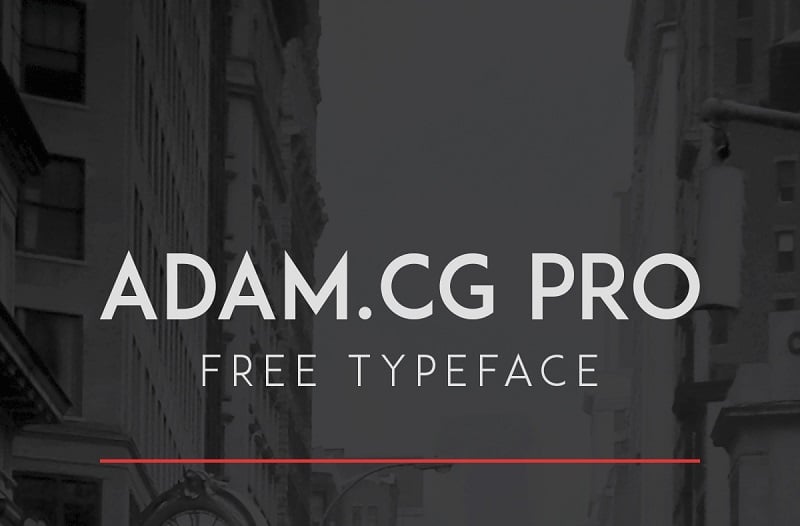
It is all capital symbols font with an interesting design. We recommend using it with noir design, or dark backgrounds. But you should do as you like and try a few experiments.
2. Aileron
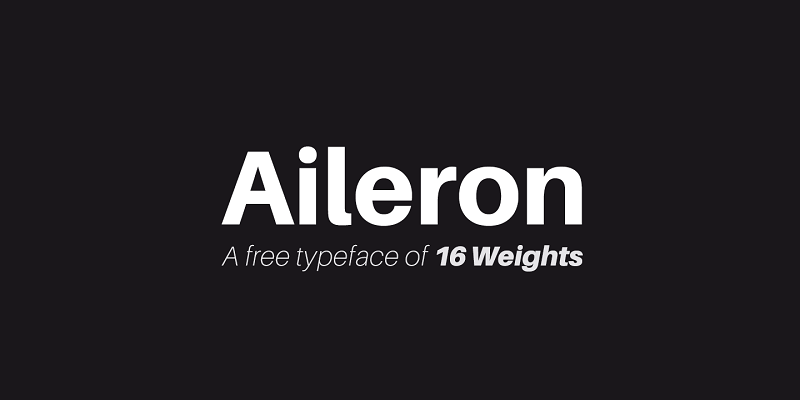
This free font is a neutral yet eye-catching tool for your book. Try it out and you will love it.
3. Alcubierre
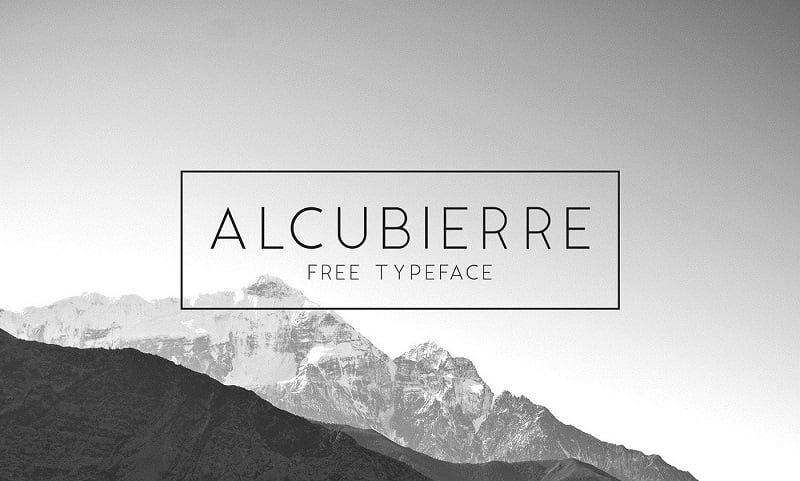
Alcubierre is a clean geometric sans serif typeface. It is good for minimalistic design and can be used for various projects.
4. Archive
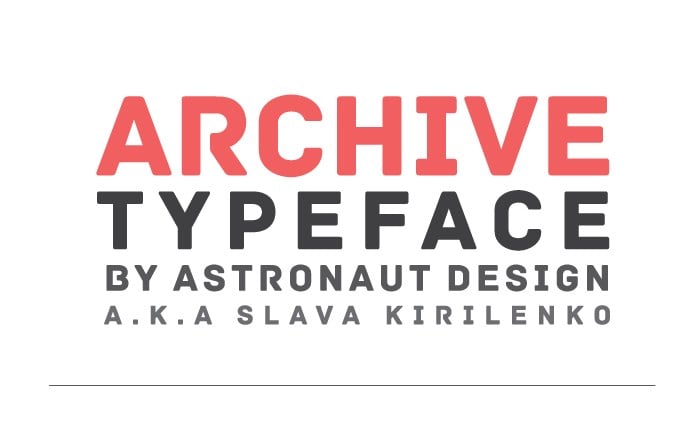
It is a great sans-serif font with strong geometric forms. You can use it for websites, prints, and so on.
5. Arkhip
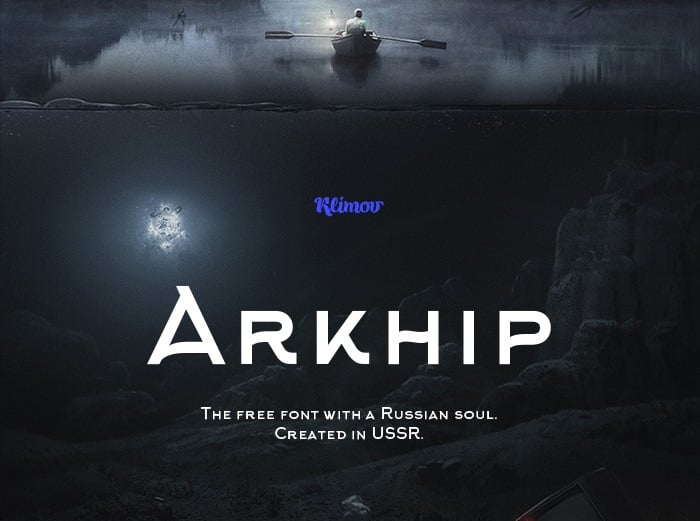
This is a typeface straight with deep Russian roots. Made by a Russian developer, it looks very authentic. Use it for prints, titles, and fantasy literature.
6. Audrey
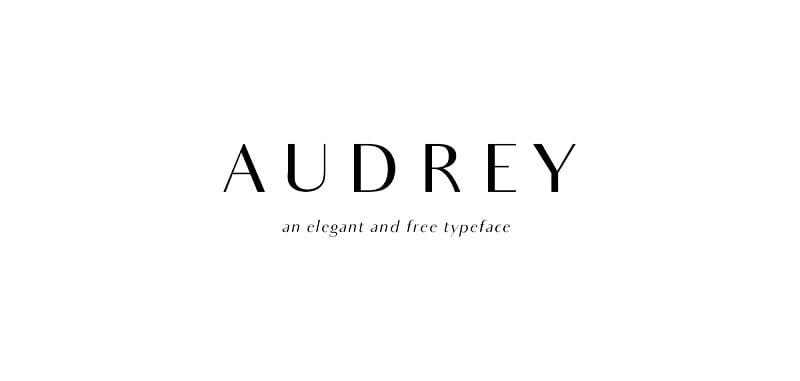
One of the most elegant and clean typefaces. It is highly multipurpose and beautiful. Contains all size letters and numbers.
7. Bakersfield
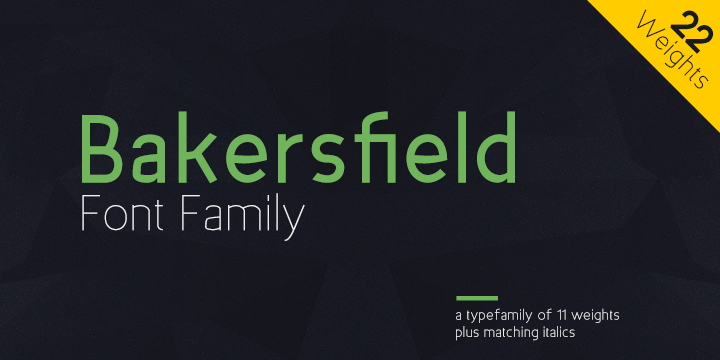
It is based on an inspiration from 1920s geometric-style typefaces. It has clean and highly legible forms. This font family is characterized by excellent legibility both in print and on the web.
8. Big John / Slim Joe
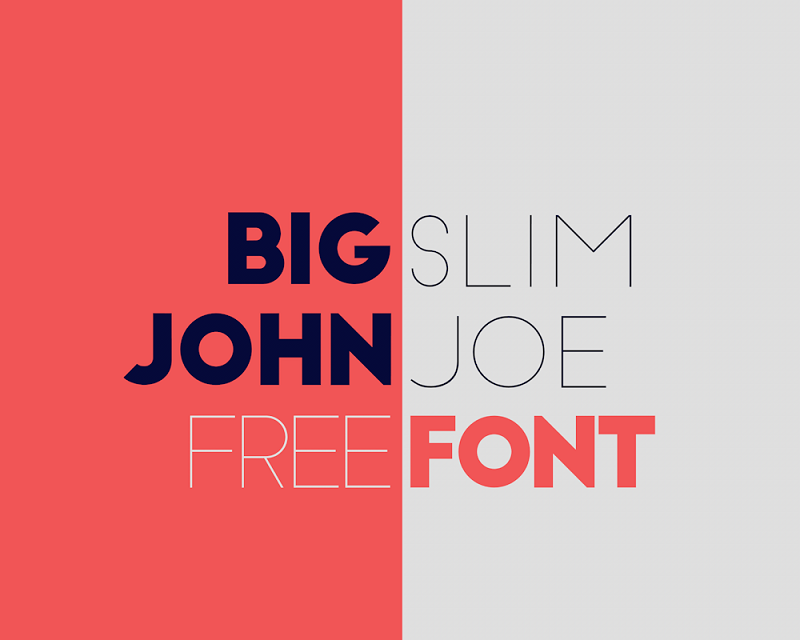
Modern and very aesthetic font with stylish symbols that will be an eye-catching addition to your project.
9. Borg
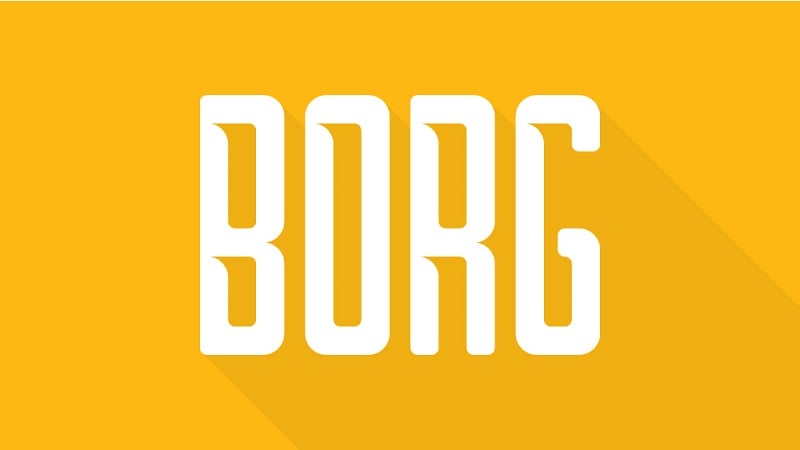
Inspired by the Swedish alphabet and art, this geometric typeface has a curved incision and an interesting design. The bright and stylish font will be a powerful tool.
10. Moon
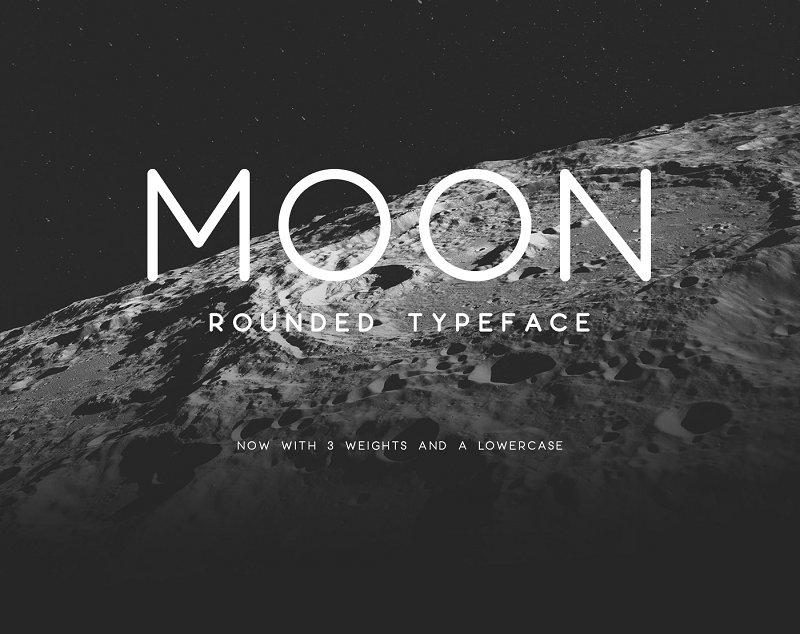
Moon is a sans-serif font based on the German alphabet. It has additional letters and it is totally free.
11. Raleway
Raleway is an elegant sans-serif typeface, designed in neo-grotesque style.
12. Signika
It is one of the best sans-serif fonts. This typeface comes with a wide symbol set that can be used for texts in European languages. It also contains small caps, pictograms and arrows.
Serif fonts
13. Aleo
Aleo has all the symbols of the Latin alphabet. It also has six styles (three weights and three italic) and sleek structure.
14. Arvo
In the Finnish language, Arvo means "number, value, worth." And this font is really worth downloading. It has four styles and contains all English alphabet plus numbers.
15. Athene
Gorgeous and elegant, the Athene font will be the perfect addition for a strict design.
16. Bitter
Bitter contains the Cyrillic and Latin alphabet plus numbers and numerous symbols. It is free and it has all you may need.
17. Brela
It is a great multipurpose font from makarskaestudio. Made by talented designers it is beautiful and has all you need.
18. Butler
Butler was created as an experiment when the author tried to bring a bit of modernism to serif fonts by working on the curves of classical serif fonts.
19. Choplin
Choplin is a modern and clear geometric slab serif with a sturdy heart.
20. Donau
Named after the German name for the river Danube this typeface has two styles, Alte and Neue. It is very authentic and aesthetic.
21. Fenix
Based on calligraphy with strong serifs and rough strokes, Fenix is perfect for long texts and display.
22. Libre Baskerville
This serif font is based on the American Type Founder's Baskerville from 1941 yet it was modernized to look good on the screen. It is commonly used for body text.
23. Lora
It is serif font that has some calligraphy elements. It was developed as a body text font.
24. Madras
Inspired by Thomas’s Andromeda typeface and street signs this typeface is a great serif font for various text types.
Rounded
25. Asap
Asap is especially good for screen and desktop use. Due to its shape, Asap is eye-catching and wide.
26. Bariol
This rounded font will attract audience attention to your titles and highlights.
27. Bring tha noize
It is a rounded font created in line with street art vibe. Use it for thematic design and it will highlight your titles.
28. Bubblegums
Funny and unusual font for kids and related web design. Use it with colorful background and you will be amazed with the results.
29. FT Helsingfurt
Three-dimensional shape of symbols may be a help for your design in case you need something interesting for your title.
30. Linotte
This font is very interesting. Though it is gentle and naive it is also legible and suitable for long texts with small symbol size.
31. Maddac
Maddac looks perfect with soft colors and is commonly used for titles and highlights. It has an unusual design and the shape of its symbols makes Maddac unique.
32. Maxwell
Maxwell is a multipurpose typeface that can be used for any type of design. It is commonly used for watermarks and logotypes.
33. Oduda
Thick 3D symbols are impressive and eye-catchy. Play with this font and see how it looks with a bright background.
34. Porky's
This font is a tribute to the 1980s film Porky’s. Big and funny, this font will be perfect for an entertainment design.
35. Ugo
Ugo is a modern and fancy typeface that looks extraordinary and has an original style.
36. Underwhelmed
Original free font that works well and can be the perfect addition for your design if you are looking for something unique.
DISPLAY
37. Arenq
If you need a stylish tool to highlight your image then use Arenq. It is eye-catching and stylish.
38. Aroly
It is a high poly font with trigonal lines and it looks good. It is popular due to its polygon design.
39. Carioca
It is a very colorful and refreshing typeface. Carioca is perfect for entertaining and art design. Play with it and you will like it.
40. Chelsea
Chelsea has four styles and an original design. It is based on the classic Badoni font. But it was remastered in order to make it modern and more legible.
41. Dual
This unique and fancy design will attract additional attention and make your design perfect.
42. Flomic
The futuristic style of the Flomic typeface will be in use for thematic web design and titles.
43. Fonarto
Fonarto is a classic, yet stylish typeface for titles, images, and posters.
44. Frinco
Based on an old fashioned font style, this typeface looks amazingly attractive. It is a multipurpose tool for any designer.
45. Furgatorio
It has 3D shaped symbols and a unique style. You will like it.
46. Kanji
Strict yet very elegant typeface for your web design.
47. Mad Squire
A talented designer created this state-of-the-art font and it supports multiple languages.
48. Myra
It is all a caps-free font family that looks strict yet highlights your text.
49. Typography Bundle
It has TTF and OTF file formats. This is a fresh typeface developed by professionals, and is perfect for titles and text on images.
Retro and vintage fonts
50. Cheque
This is a gorgeous font that contains both Latin and Cyrillic alphabet. It is stylish and graceful.
51. Bauru
Bauru works perfectly with noir design. It is a strict and stylish font.
52. Streetwear
This typeface is based on 1960s and 1970s style. Streetwear was created especially for logos, posters, branding, packaging and t-shirt design.
53. Paralines
This font has fashionable and has an eye-catchy design. Based on 1990s design style.
54. Hamurz
Free for personal and commercial use font with unordinary yet gentle design.
55. LOT
Perfect multipurpose typeface that can be used for any type of graphic design: web design, logos, prints, etc.
56. Palm Canyon Drive
Based on American 1950s style this typeface is perfect for a retro design.
57. Frontage Condensed
Developed as a colorful 3D font based on retro style it will be perfect for thematic web design, logos, prints, etc.
58. Monthoers
Ornate noire design that will be a valuable addition for your project.
59. Hamster
Multipurpose typeface with brush lettering.
60. LAZER 84
Based on 1980s style typeface that looks perfect.
61. Berlin
It has such good stylization that you might think it was made in the 1960s. A free font that looks good and creates a 1960s atmosphere.
62. Kino 40
Based on 1940s movie style this typeface will be a good addition to your collection.
Graffiti fonts
63. Ruthless Dripping One
Created according to street art standards, this typeface will be a good design feature for any magazine.
64. Urban Jungle
Graffiti typeface with original style and design.
65. BlowBrush
Typeface based on hip-hop style with oriental elements. Good addition for your collection.
66. Sister Spray
Simple and clean typeface based on hip-hop art style.
67. Tag Type
Eye-catchy hip-hop stylized font with Latin and Ukrainian alphabet.
68. Sprite
Inspired by sprite commercials and color tones, this graffiti typeface has both Latin and Cyrillic set of symbols.
SCRIPT CALLIGRAPHY
69. Ambarella
Gorgeous handwriting font created in line with Western European characters
70. Before Breakfast
Funny and simple typeface for your personal free use.
71. Besom
This is a distinct design with simple yet creative style.
72. Bizon
Based on old American cinema style this handmade typeface is unordinary and impressive.
73. Cavorting
This funny goofy font is something special for your fonts collection. Perfect for entertainment design and design developed for kids.
74. Claire Hand
New creative and clean typeface for letters and invitations.
75. Cutepunk
You may feel aesthetic pleasure while using this fascinating typeface.
76. Fabfelt
Multipurpose script calligraphy font with soft and simple design.
77. Gagalin
Perfect for comics, memes, and funny prints typeface.
78. Grandhotel
Simple yet elegant typeface that will look good both online and on store signage.
79. Helv Children
A typeface with a set of letters straight from the 1930s gangsters. Good for street art and good for t-shirt printing.
80. Kristi
This hand drawn typeface looks like a work of art. It is gorgeous and beautiful.
81. Ludicrous
This thick and simple handwritten font may look simple yet it is multipurpose and it looks good.
82. Mightype
Mightype is a hand lettered script font with French style.
83. Nickainley
It has very classic and vintage style and contains both Latin and Cyrillic alphabet.
84. Over the Rainbow
It is a funny and simple font with nothing redundant. Perfect for making people smile and bringing good news.
85. Parker
Old but gold typeface based on American style.
86. Skinny
Simple font with thick symbols for some simple and colorful design.
87. Stay Writer
Soft and pleasant calligraphic typeface. It has a multipurpose design and can be used everywhere.
88. Sverige
Aristocratic old style typeface with various additional ornate elements.
89. Tragic Marker
Simple yet eye-catching font for free personal and commercial use.
90. Whatever it takes
Simple typeface that will bring diversity to your design.
UNUSUAL FONTS
91. Elixia
Elixia is an unordinary typeface that looks interesting. It looks both futuristic and ancient at the same time. You will definitely like it.
92. Anurati
This font has a modern design that looks like a work of art.
93. Supermercado One
Supermercado One is a low contrast geometric typeface based on naive industrial letters.
94. Jaapokki
This font is modern and strict. Yet it is very attractive due to the creative shape of some of the letters.
95. Le Super Serif
Thanks to the unique letter combination included into the typeface set, this font is unique and popular.
96. Labyrinth NF
Based on 1920s style this font looks bizarre and beautiful at the same time.
97. Trickster
Named after an ancient god of Native Americans, this typeface has an ancient and mysterious vibe.
98. Tropicana
Based on African style, this font looks exotic. You can easily create an atmosphere of sunny days.
99. Pelmeshka
After a long time working on it, the author created a typeface with a set of convex letters that looks merrily and unusual.
100. Schneidler
Besides the Latin alphabet, this typeface contains a set of unusual symbols. The shape reminds us about graffiti fonts yet it is very authentic.